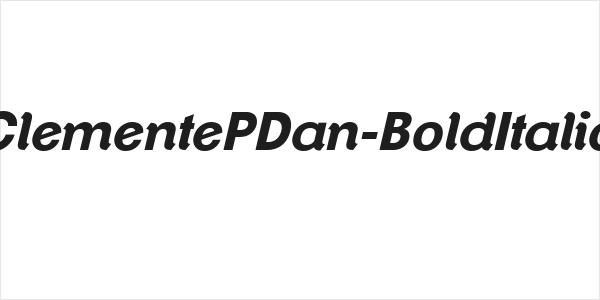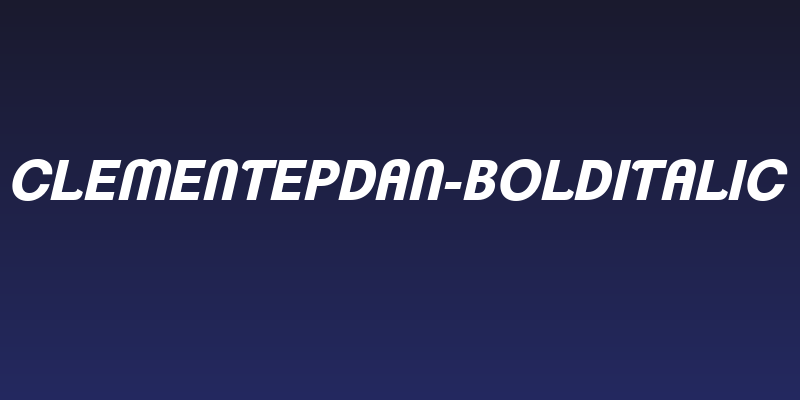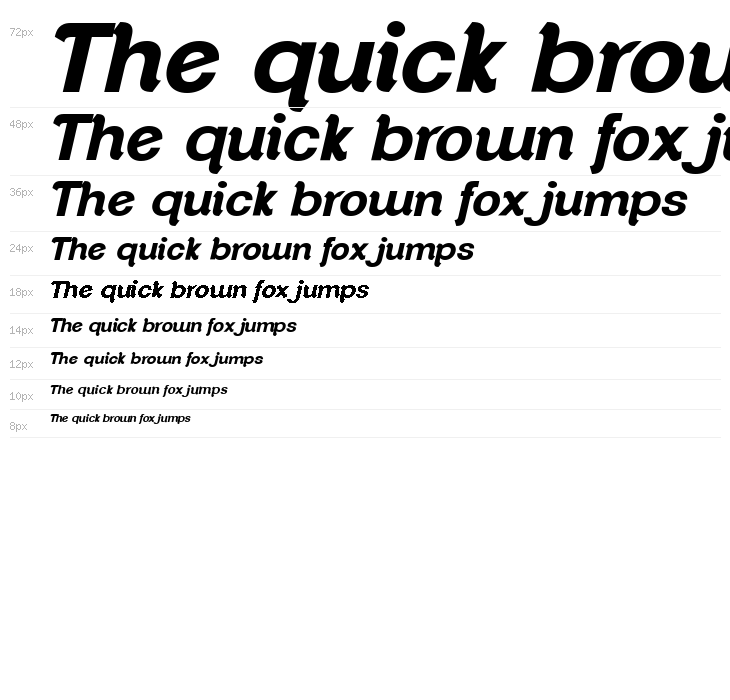
ClementePDan-BoldItalic Font
ClementePDan-BoldItalic Description
This font exhibits a bold and italic style, characterized by its smooth curves and dynamic slant. The uppercase letters are robust and slightly condensed, giving a strong presence, while the lowercase letters maintain a consistent flow with rounded edges. The numerals are clear and bold, ensuring readability. Special characters are designed with the same boldness and slant, maintaining uniformity across the set. The overall appearance is modern and energetic, suitable for making a statement.